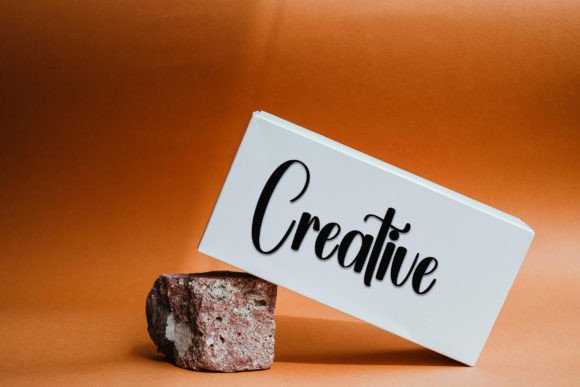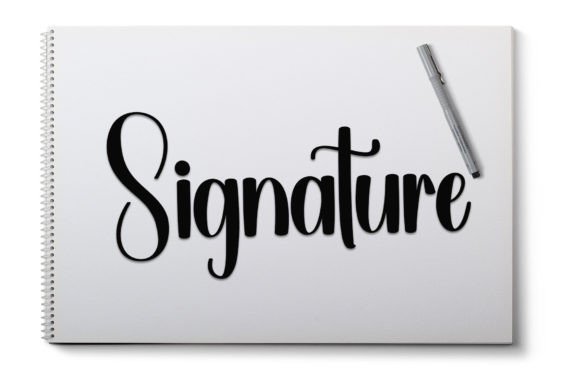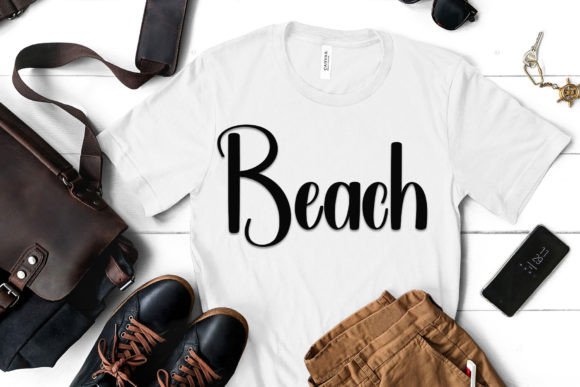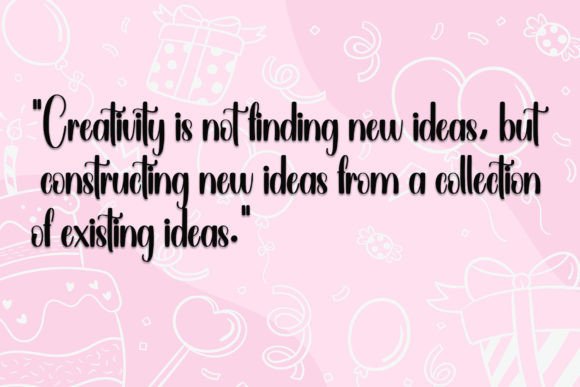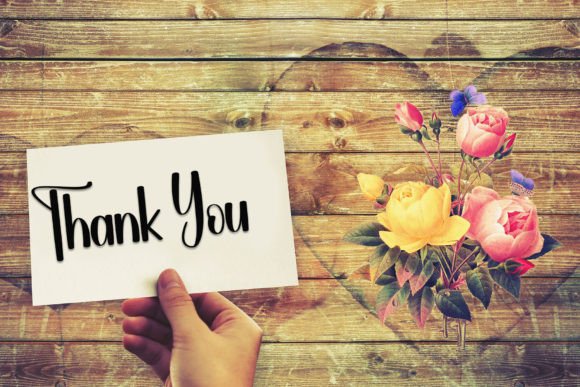
Introducing Daschund: The Sweet and Cursive Handwritten Font
Are you looking for a font that can add a touch of sweetness and romance to your design projects? Look no further than Daschund, a beautiful and cursive handwritten font that’s perfect for a variety of design ideas. In this article, we’ll take a closer look at Daschund and explore its features, benefits, and uses.
What is Daschund Font?
Daschund is a sweet and cursive handwritten font that’s designed to bring a touch of joy and romance to your design projects. Its gentle and flowing curves make it perfect for creating beautiful and eye-catching designs that will capture the attention of your audience. Whether you’re working on a branding project, a wedding invitation, or a social media post, Daschund is the perfect choice.
Features of Daschund Font
Daschund font comes with a range of features that make it a versatile and practical choice for designers and crafters. Some of its key features include:
- Sweet and Cursive Design: Daschund’s cursive design is perfect for creating beautiful and flowing text that will add a touch of elegance to your designs.
- Handwritten Style: The font’s handwritten style gives it a personal and unique touch that’s perfect for creating bespoke designs.
- Easy to Read: Despite its cursive design, Daschund is easy to read and understand, making it perfect for body text and headings.
- Multilingual Support: Daschund supports multiple languages, making it a great choice for designers who work with international clients.
Benefits of Using Daschund Font
So why should you choose Daschund for your design projects? Here are just a few benefits of using this beautiful font:
- Adds a Touch of Romance: Daschund’s sweet and cursive design is perfect for creating romantic and whimsical designs that will capture the heart of your audience.
- Versatile: Daschund can be used for a wide range of design projects, from branding and advertising to wedding invitations and social media posts.
- Unique and Personal: Daschund’s handwritten style gives it a unique and personal touch that’s perfect for creating bespoke designs.
Uses of Daschund Font
Daschund is a versatile font that can be used for a wide range of design projects, including:
- Branding and Advertising: Use Daschund to create beautiful and eye-catching logos, business cards, and advertising materials.
- Wedding Invitations: Daschund’s romantic and whimsical design makes it perfect for creating beautiful wedding invitations and stationery.
- Social Media Posts: Use Daschund to create eye-catching social media posts that will capture the attention of your audience.
- Packaging Design: Daschund can be used to create beautiful and eye-catching packaging designs that will make your products stand out.
Tips for Using Daschund Font
Here are a few tips for using Daschund effectively in your design projects:
- Use it for Headings and Titles: Daschund is perfect for creating beautiful and eye-catching headings and titles that will capture the attention of your audience.
- Pair it with Other Fonts: Daschund can be paired with other fonts to create a unique and interesting design.
- Experiment with Colors: Daschund looks great in a range of colors, so don’t be afraid to experiment and find the perfect color for your design.
Daschund is a beautiful and versatile font that’s perfect for designers and crafters who want to add a touch of sweetness and romance to their design projects. With its sweet and cursive design, handwritten style, and easy-to-read curves, Daschund is the perfect choice for a wide range of design projects. Whether you’re working on a branding project, a wedding invitation, or a social media post, Daschund is sure to impress.